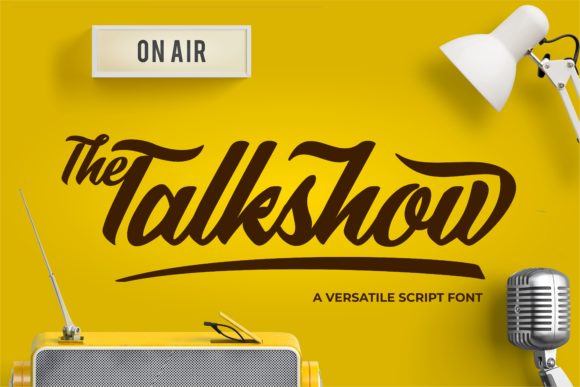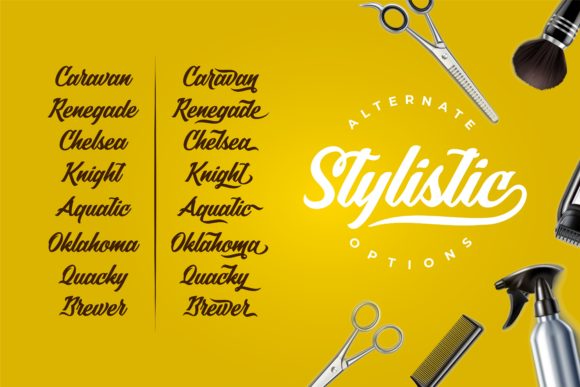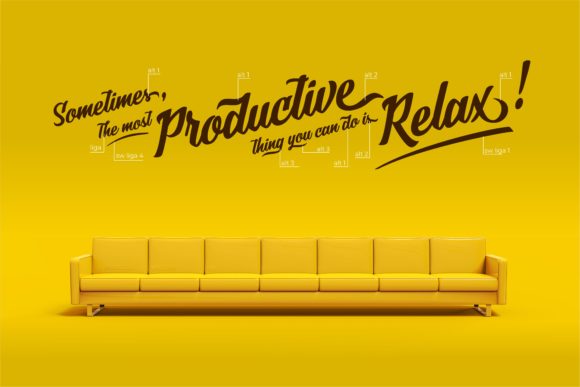
About The Talkshow Font
The Talkshow is a classy script font. Every letter has a unique and beautiful touch, and as a result, it will bring each of your creative ideas to the highest level! This font is PUA encoded which means you can access all of the glyphs and swashes with ease!